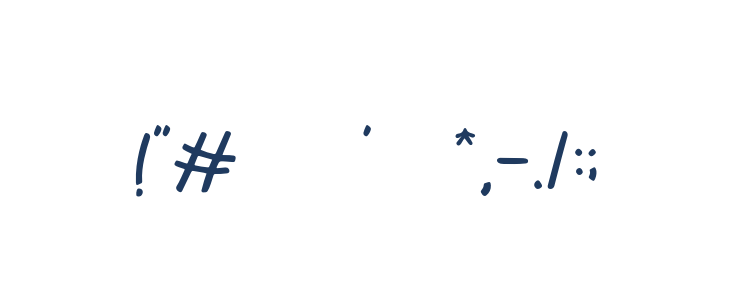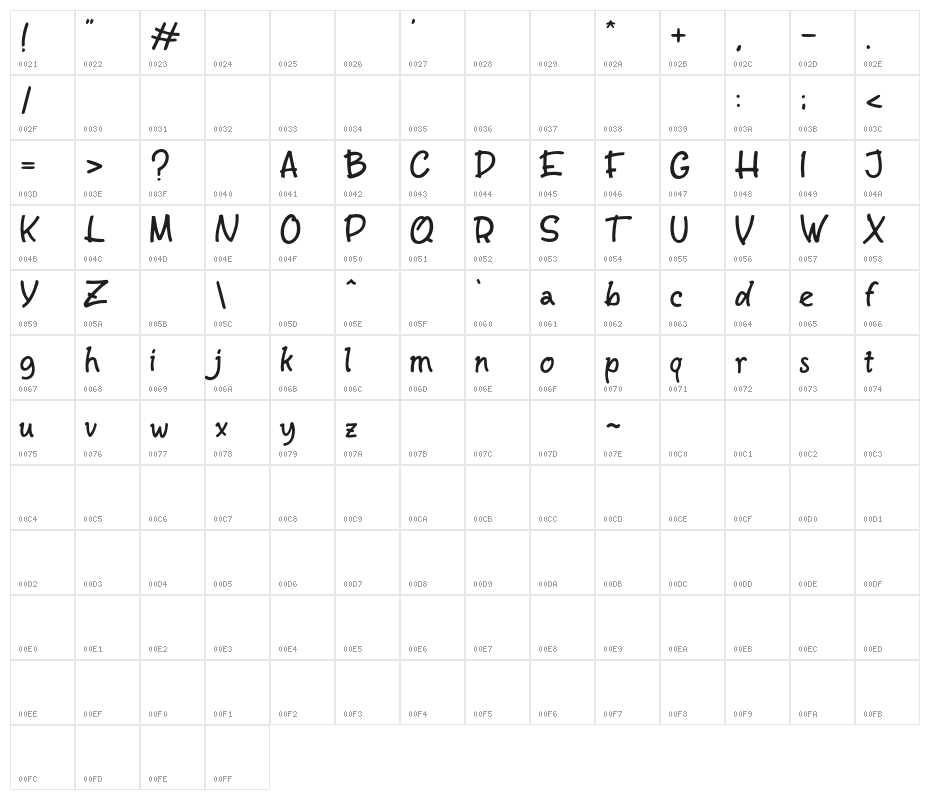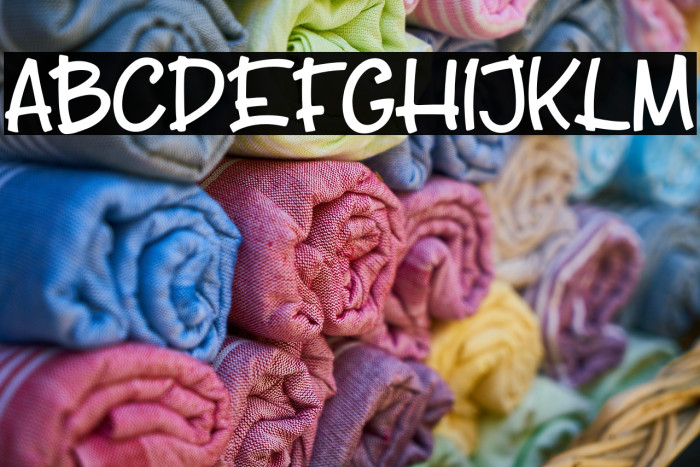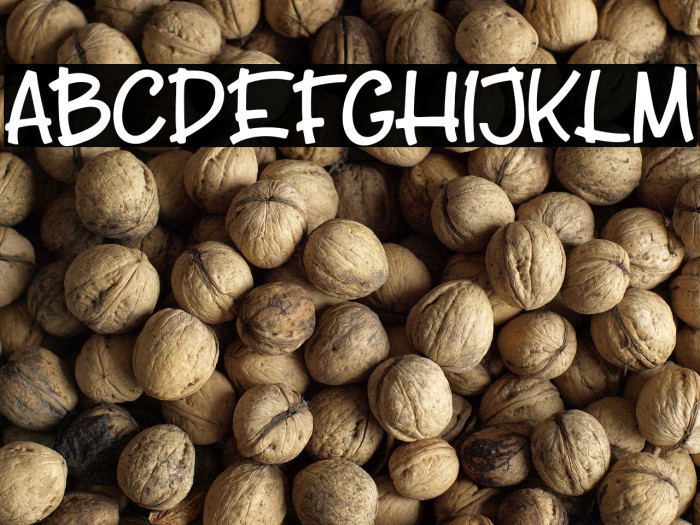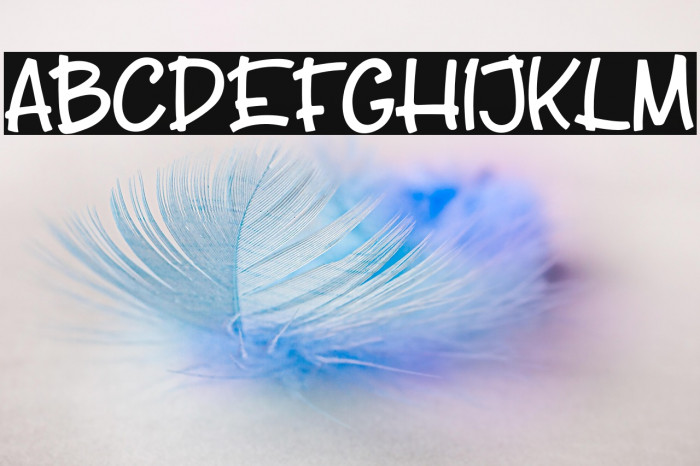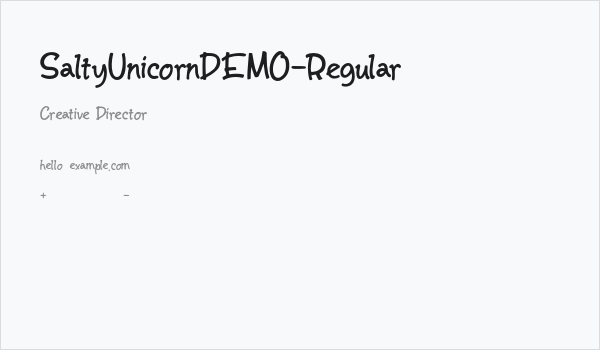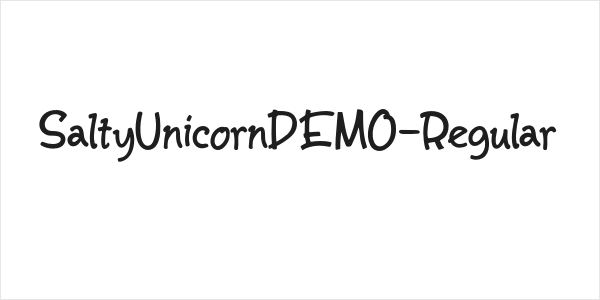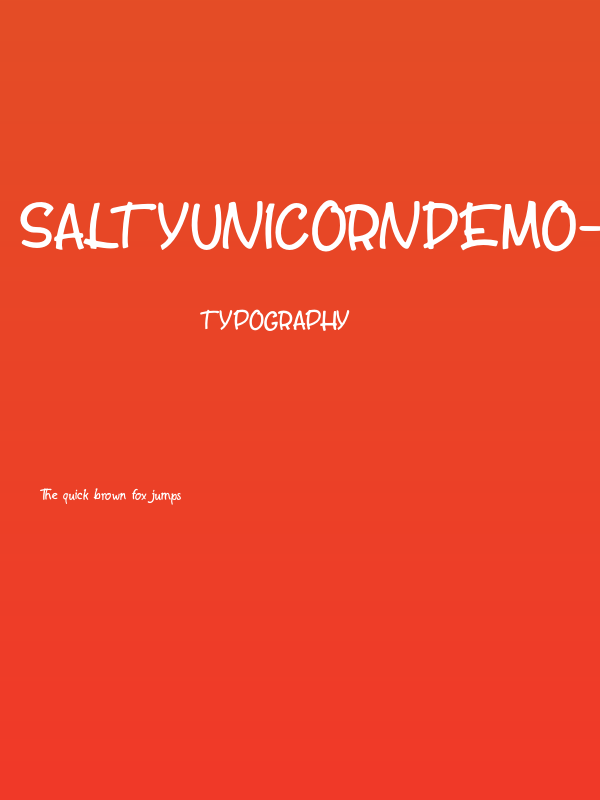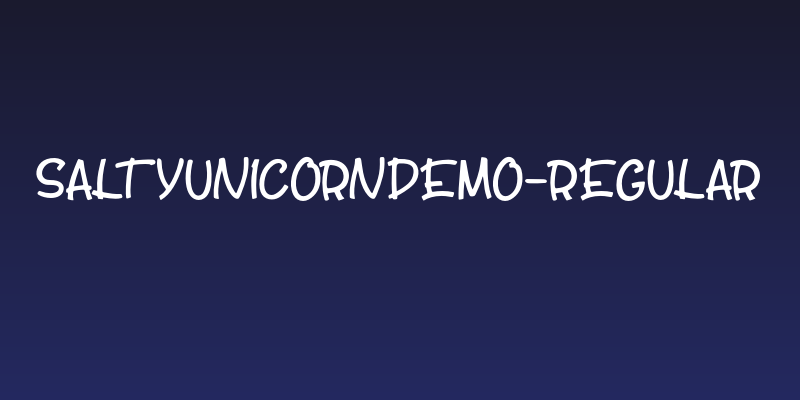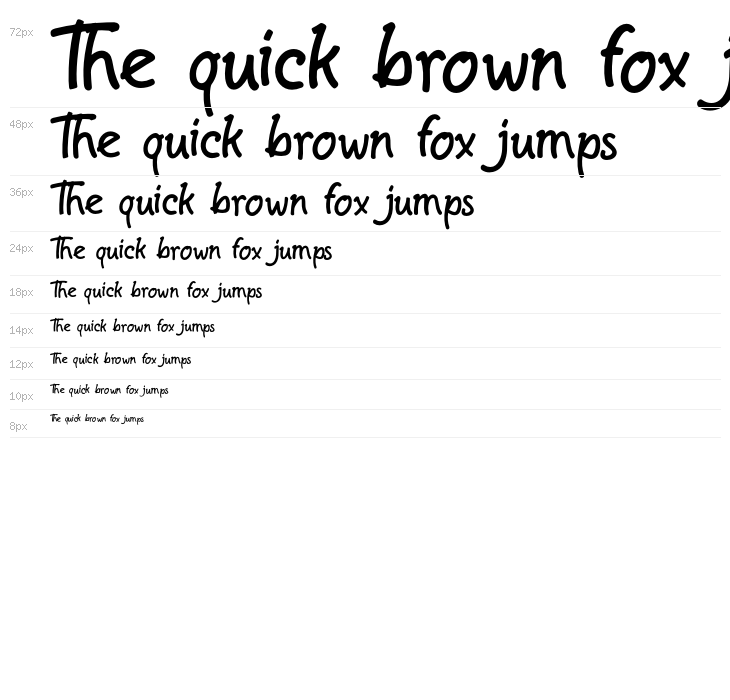
SaltyUnicornDEMO-Regular Font
SaltyUnicornDEMO-Regular Description
This font features a playful and whimsical style, characterized by its hand-drawn appearance. The letters are slightly irregular, giving it a casual and friendly feel. The uppercase and lowercase letters maintain a consistent style, with rounded edges and a slight slant that adds to its informal charm. The numerals and special characters are designed to match the overall aesthetic, ensuring a cohesive look across all text. This font is ideal for projects that require a touch of personality and creativity, such as children's books, greeting cards, or playful branding materials.
Overall StyleCasual and playful
Use CaseHeadlines, Logos, Creative projects
Proposed ProjectsChildren's books, greeting cards, playful branding, creative posters.